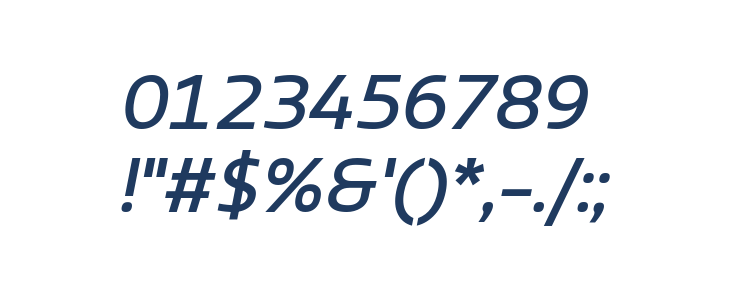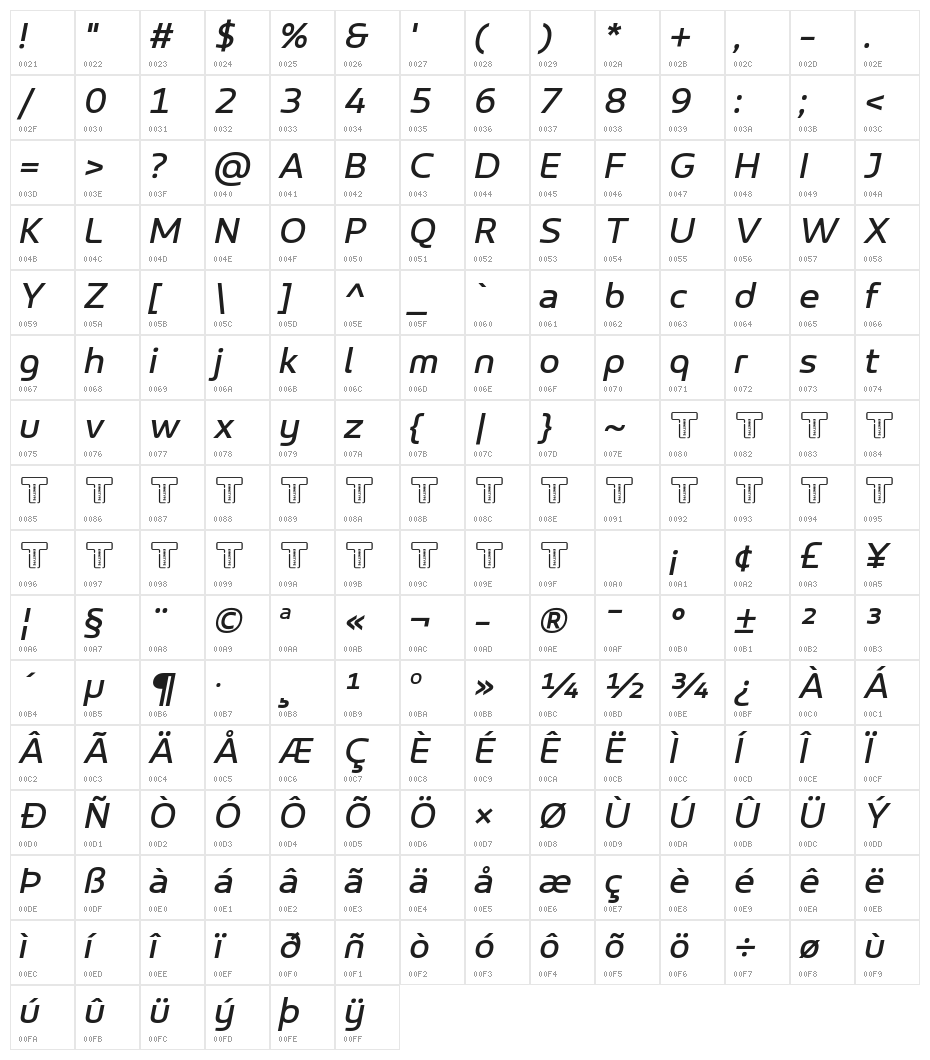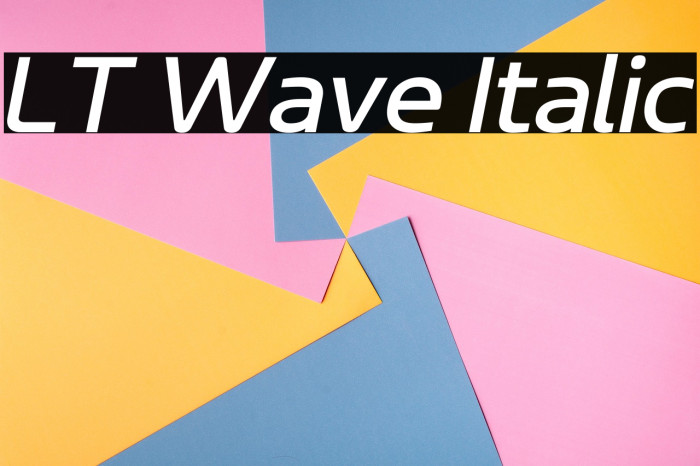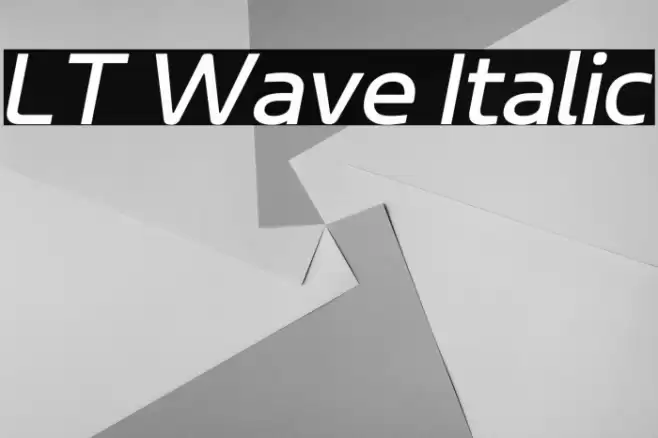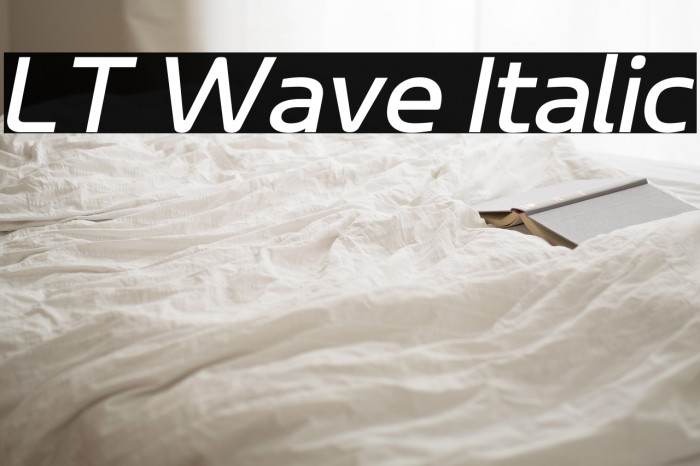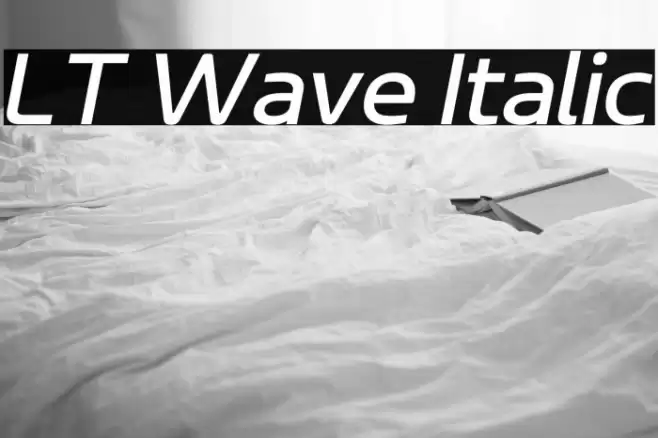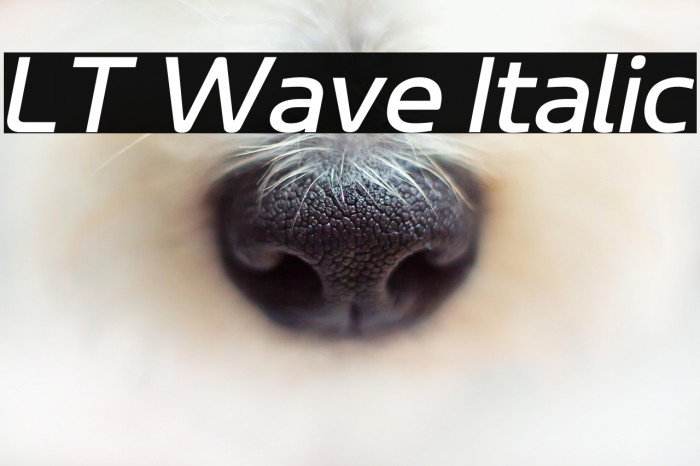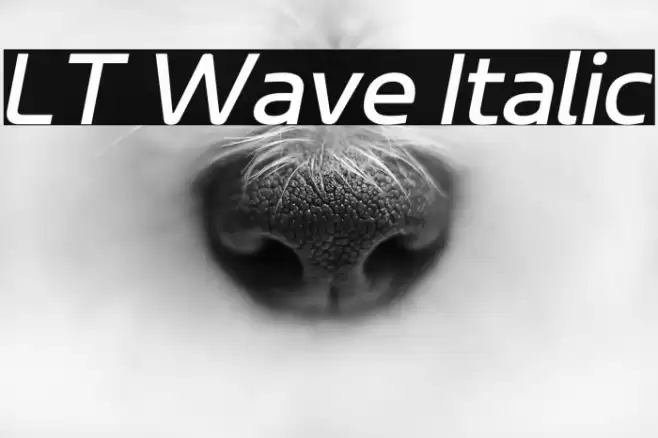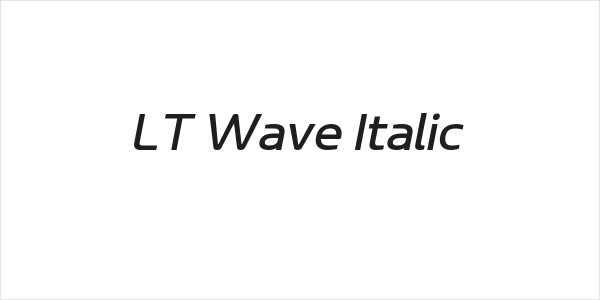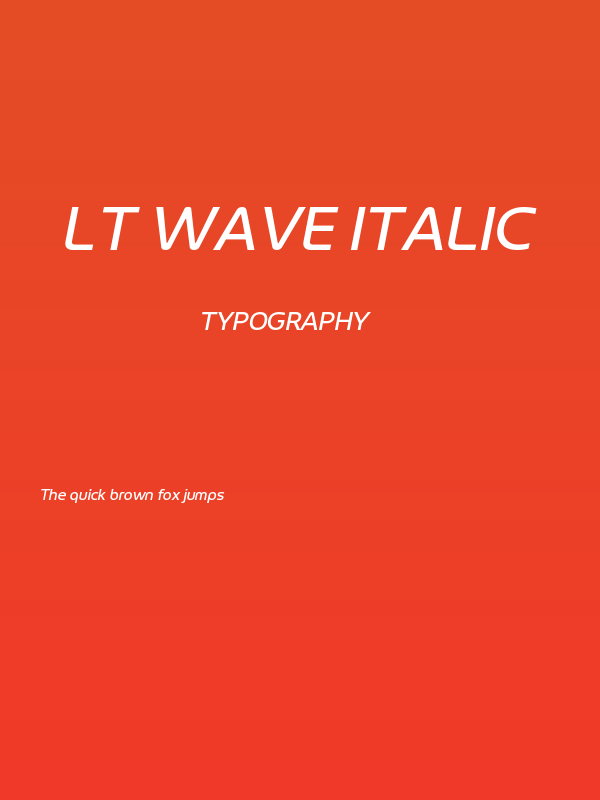
LT Wave Italic Font
LT Wave Italic Description
This font exhibits a sleek and modern design with a distinct italic slant, providing a sense of motion and dynamism. The characters are crafted with smooth curves and clean lines, offering a contemporary and professional appearance. The uppercase and lowercase letters maintain a consistent style, ensuring readability and aesthetic appeal. The numerals and special characters are designed to complement the alphabet, maintaining uniformity across the typeface. This font is ideal for projects that require a modern and stylish touch, such as branding, advertising, and digital media.
| Use Case | Headlines, Logos, Digital media |
| Proposed Projects | Ideal for branding, advertising, digital media, and modern design projects. |